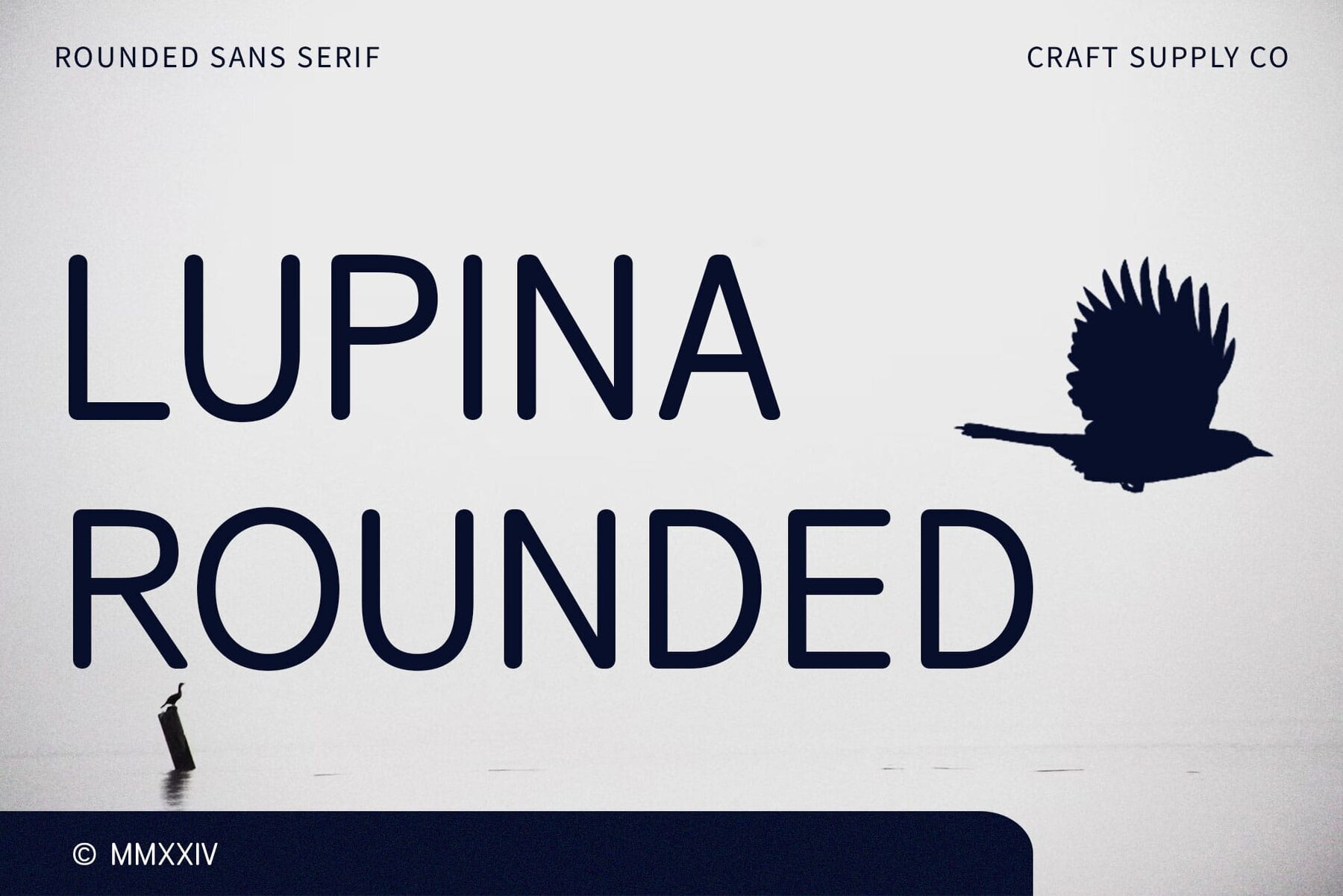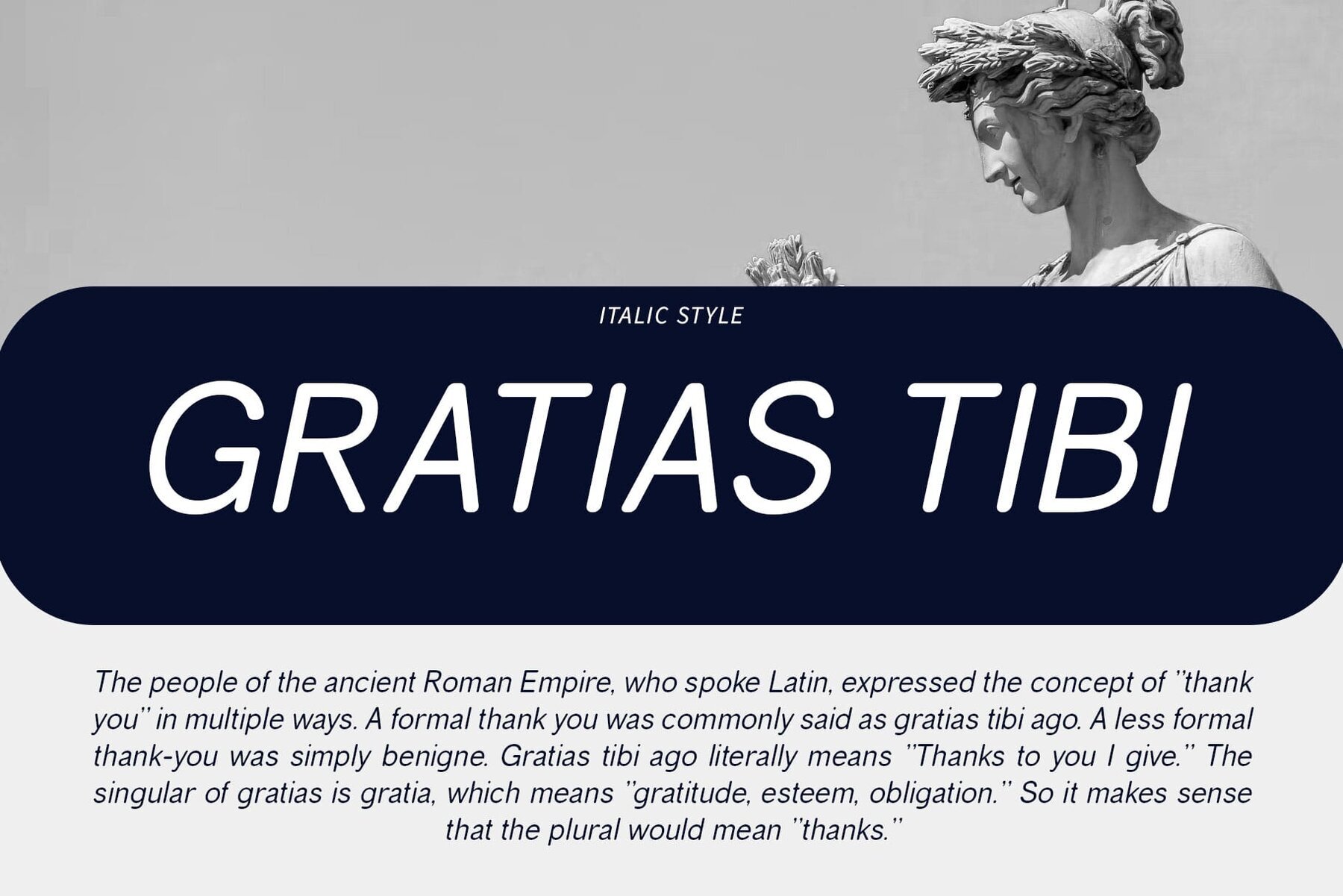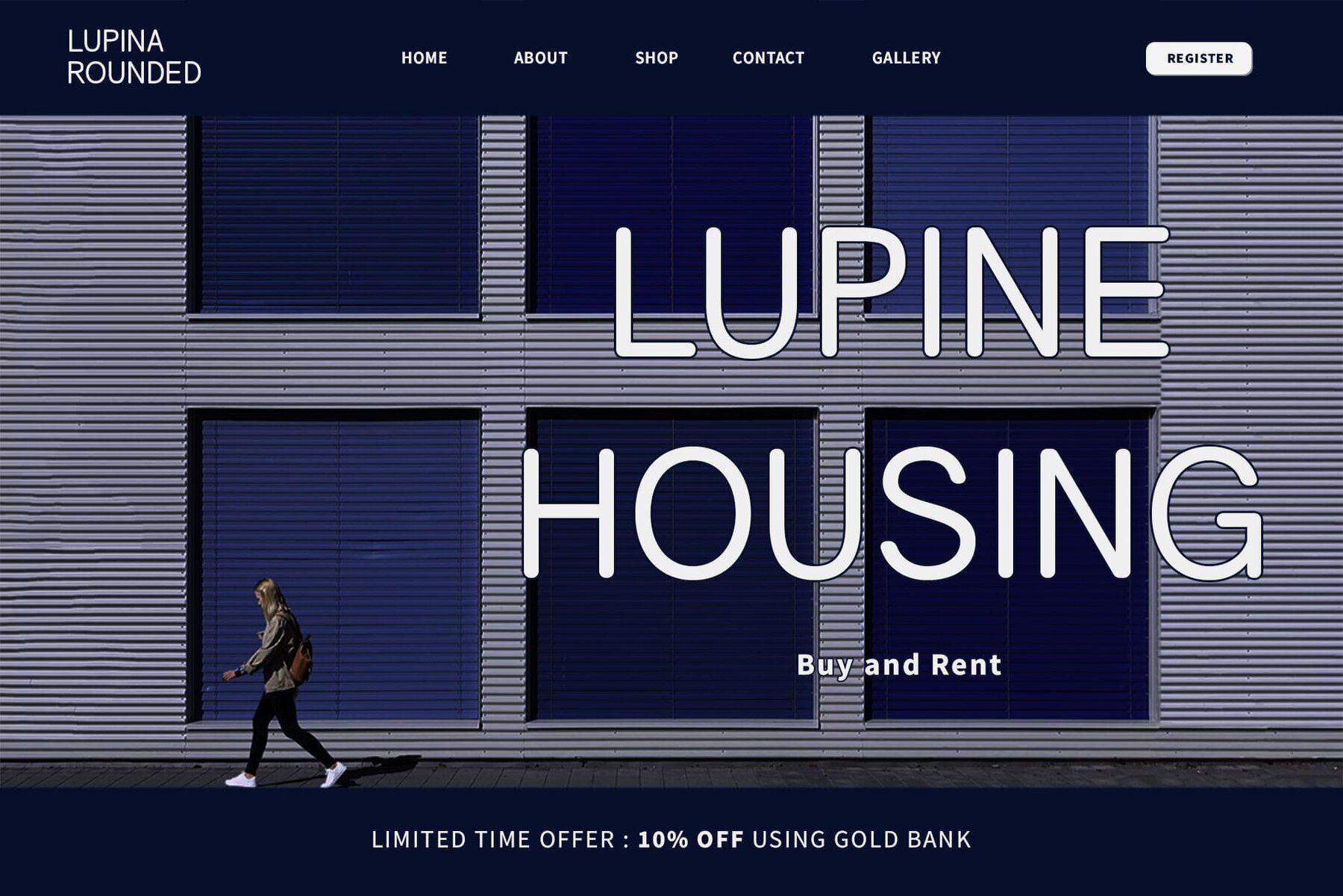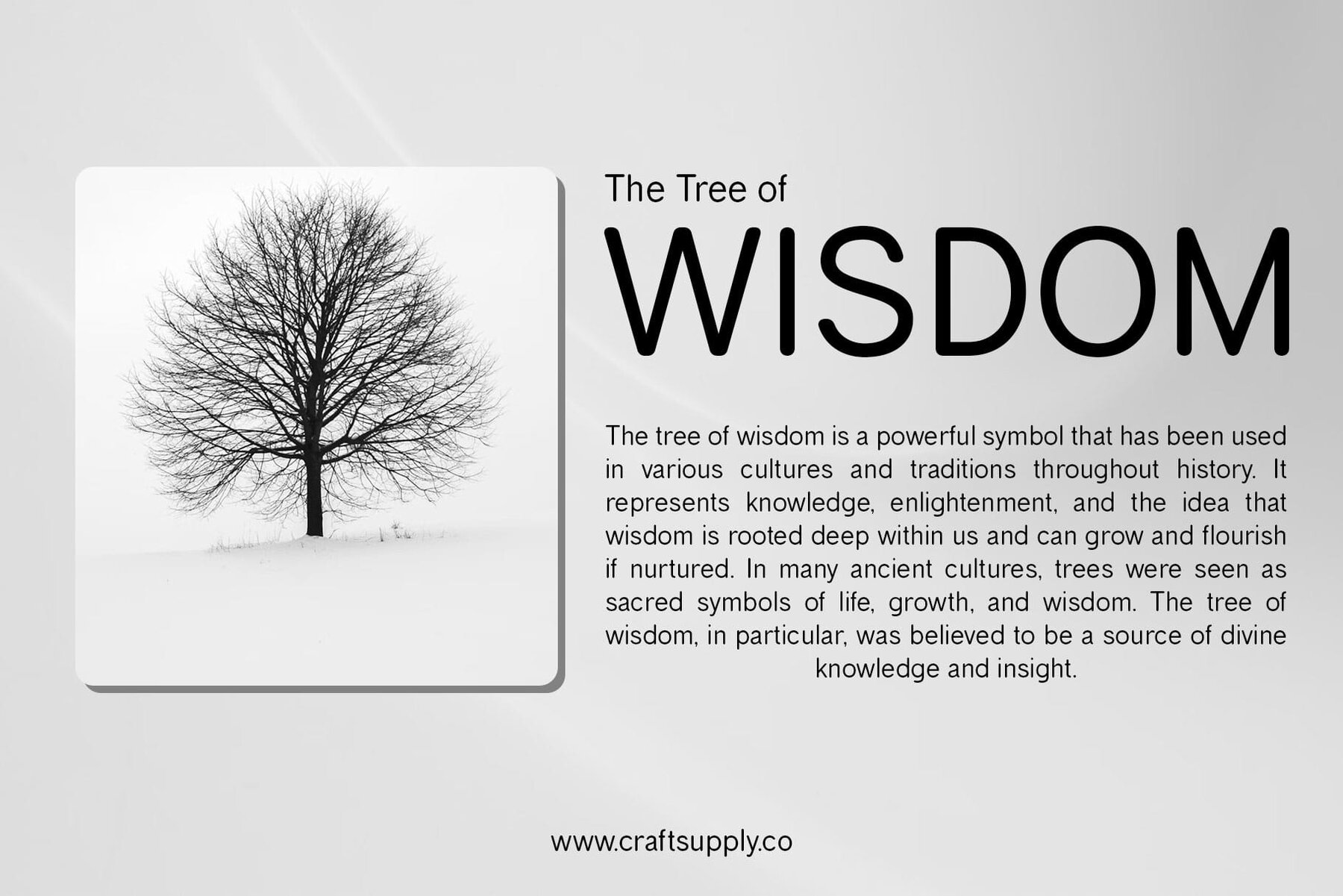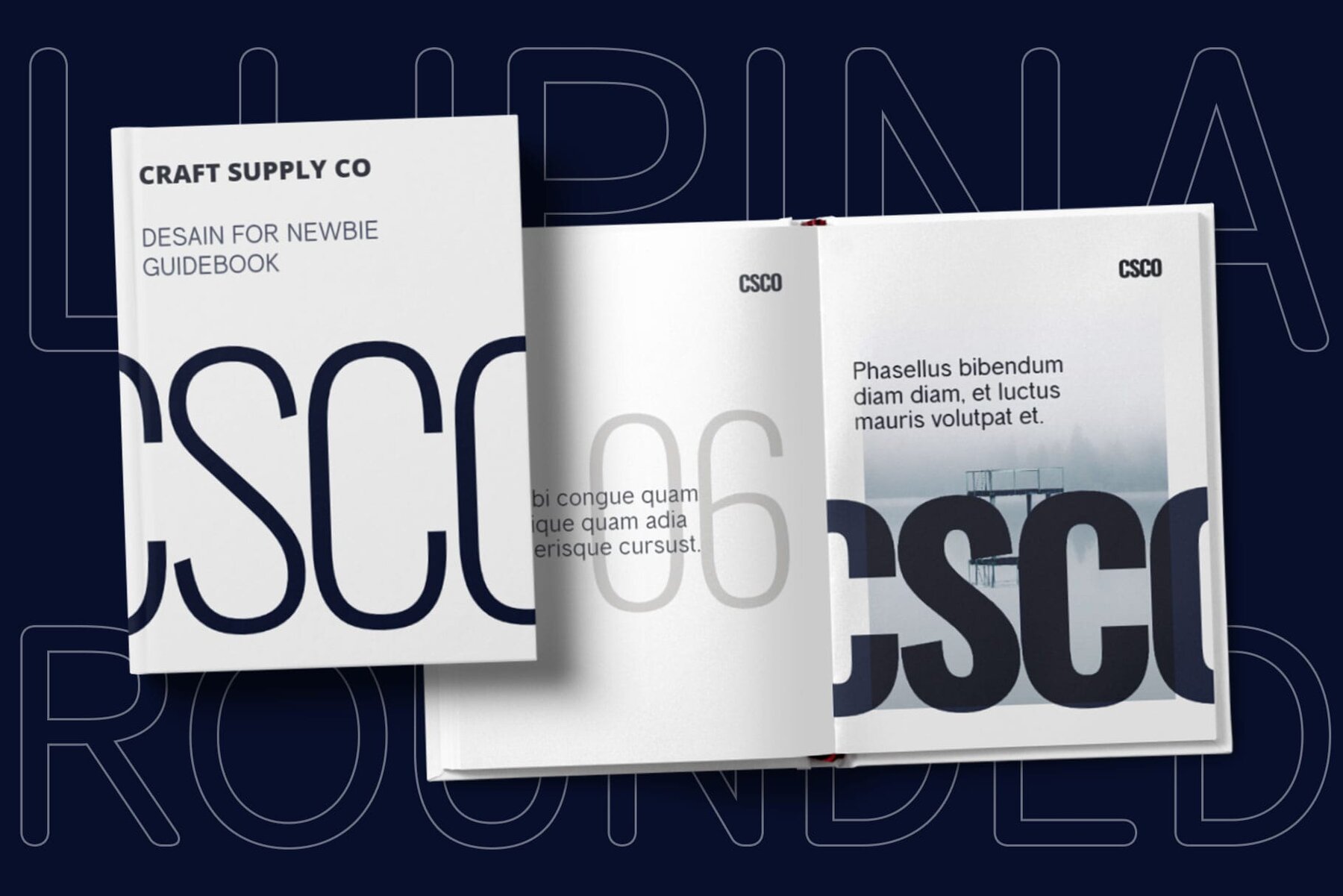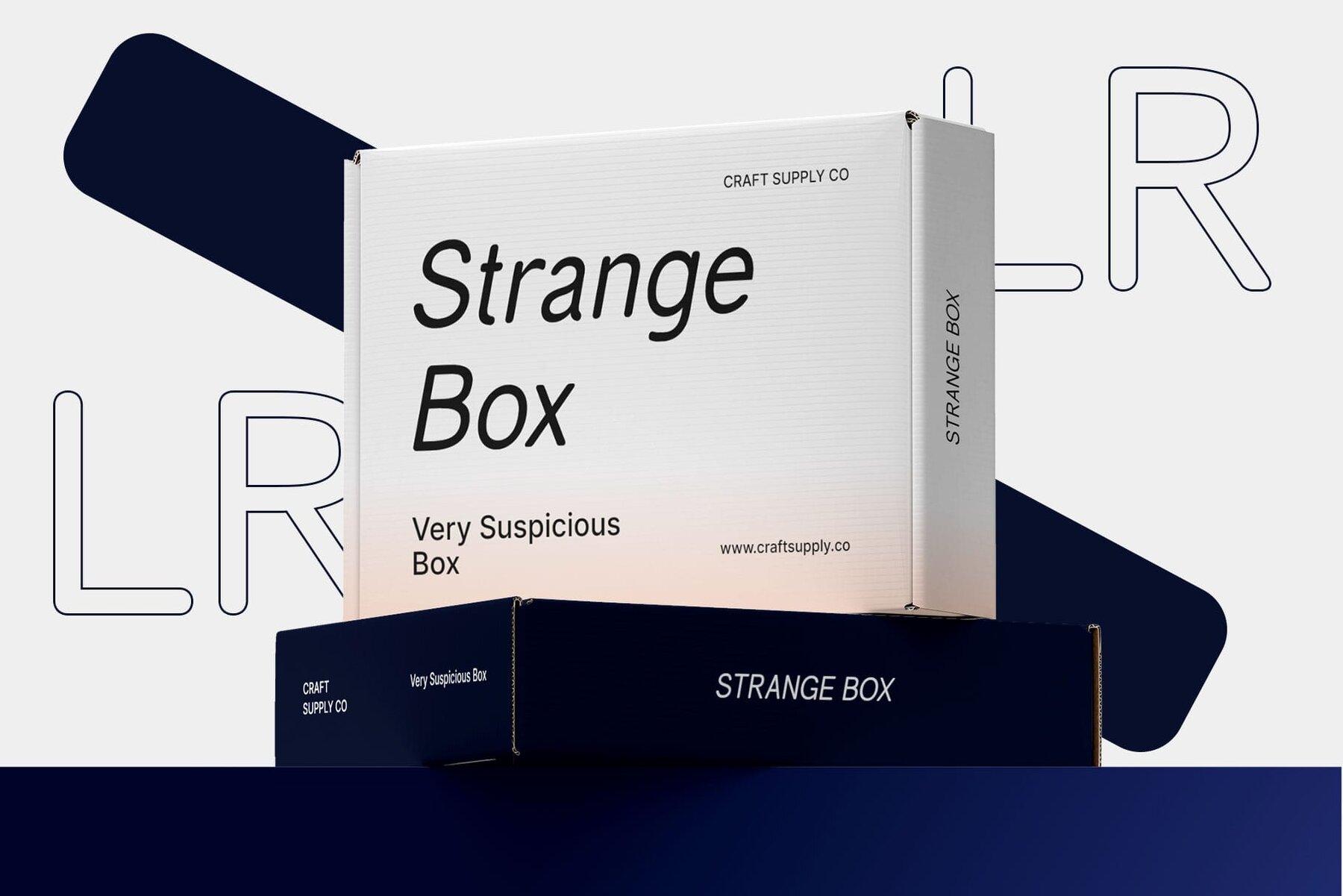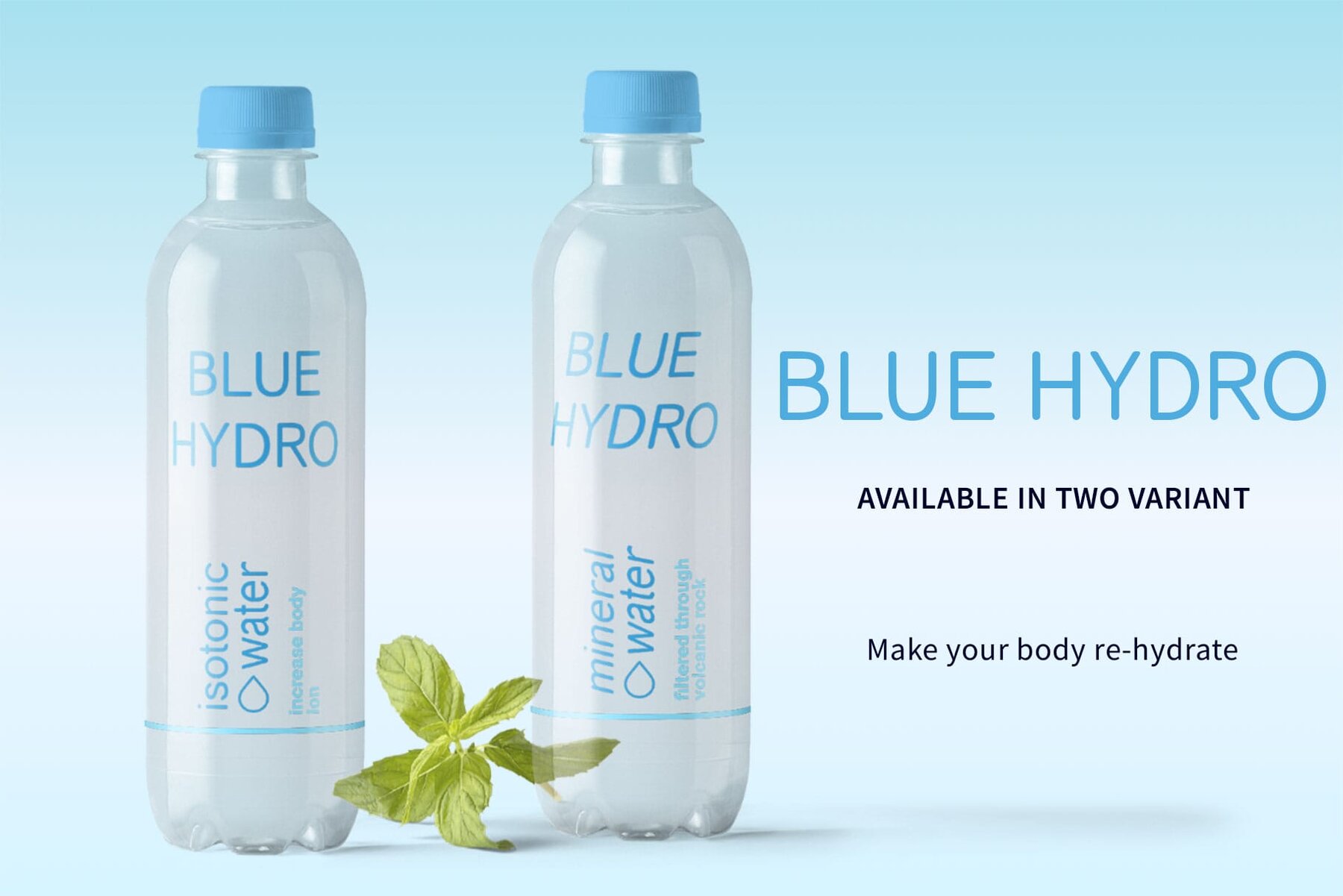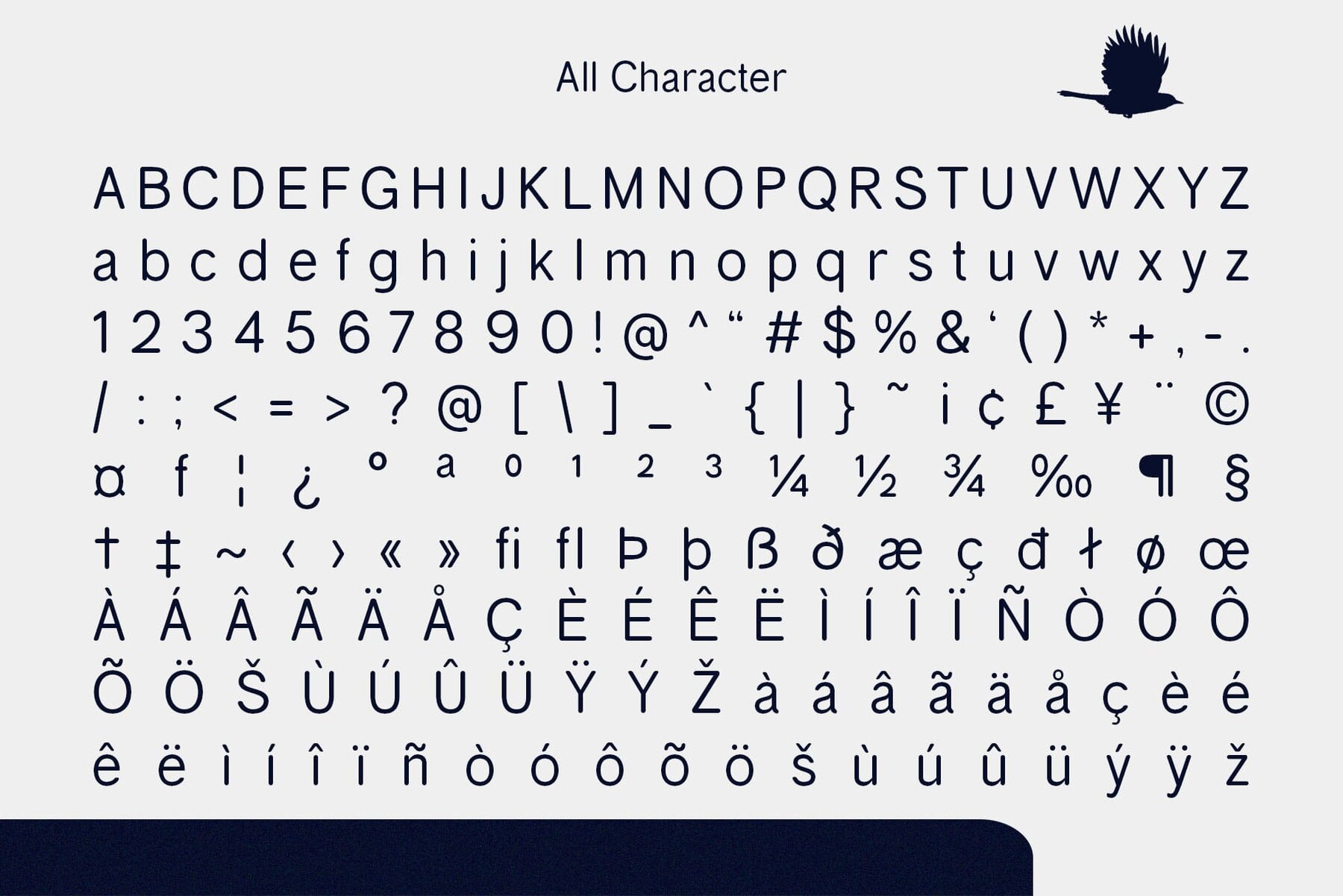
Lupina Rounded Font
Lupina Rounded is a contemporary sans serif font characterized by rounded stem ends, projecting a minimalist and modern vibe. Its low contrast design enhances its sleek aesthetic, making it a versatile choice for clean and simple designs. With subdued contrast and rounded details, Lupina Rounded embodies the heart of minimalism. Each letter is crafted to be sleek and understated, ideal for creating clean and simple design projects. The rounded edges evoke a sense of friendliness and approachability. This soft and welcoming aesthetic makes it suitable for diverse design contexts where a warm atmosphere is desired. Lupina Rounded's minimalist design and friendly demeanor lend versatility for a wide array of applications. From branding to web design, its adaptable nature ensures seamless integration into any project. This font strikes a harmonious balance between minimalist aesthetics and friendly vibes. Its rounded accents and low contrast make it an outstanding choice for designs focusing on simplicity and approachability. This typeface can be used without any specialized software. If you have any inquiries or need assistance, please feel free to contact us. We appreciate your support in enhancing your creative projects! Best regards, Craft Supply Co.Lupina Rounded: Embracing Minimalism with a Friendly Touch
Minimalist Charm
Friendly Vibes
Versatile Usage
Minimalism Meets Friendliness